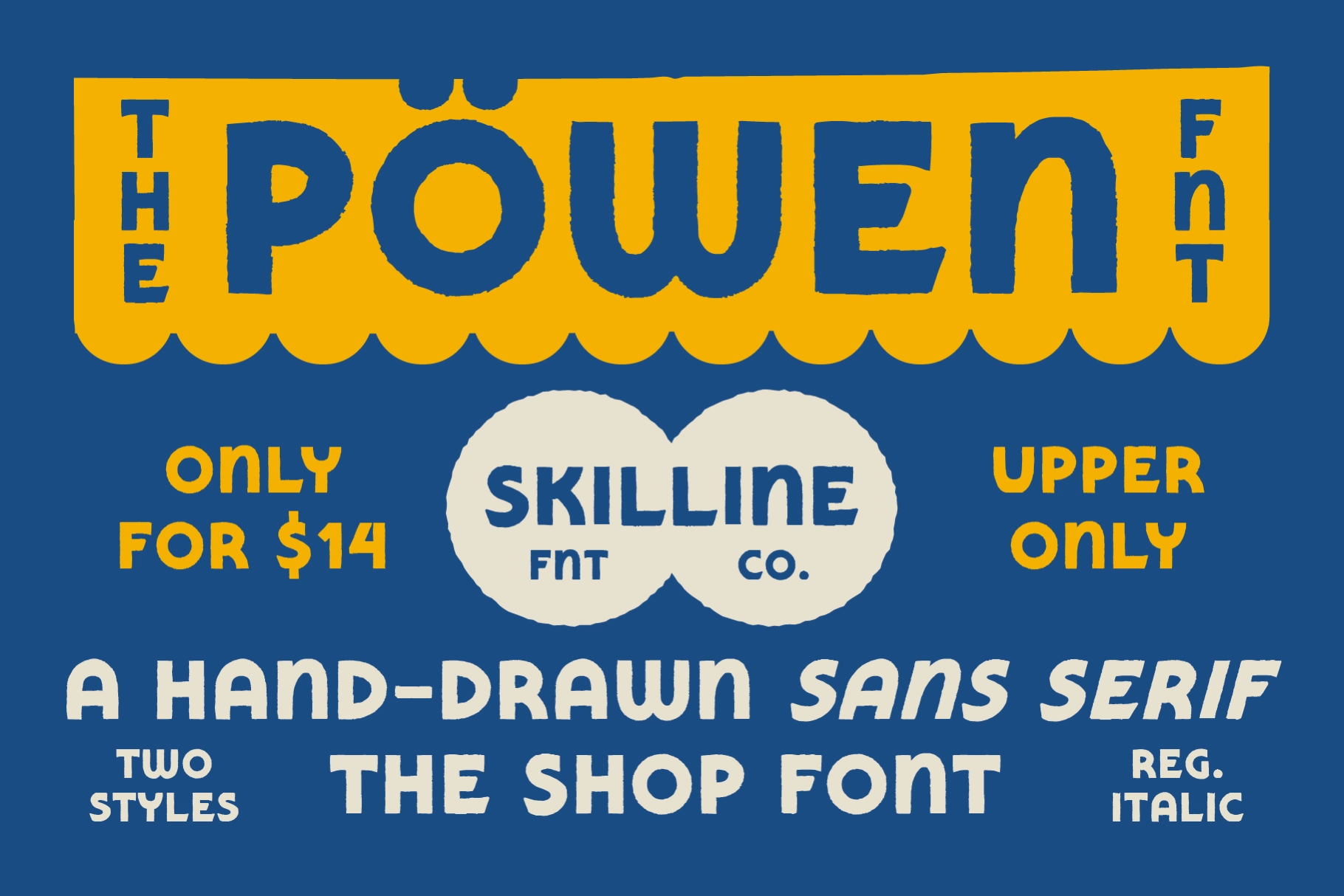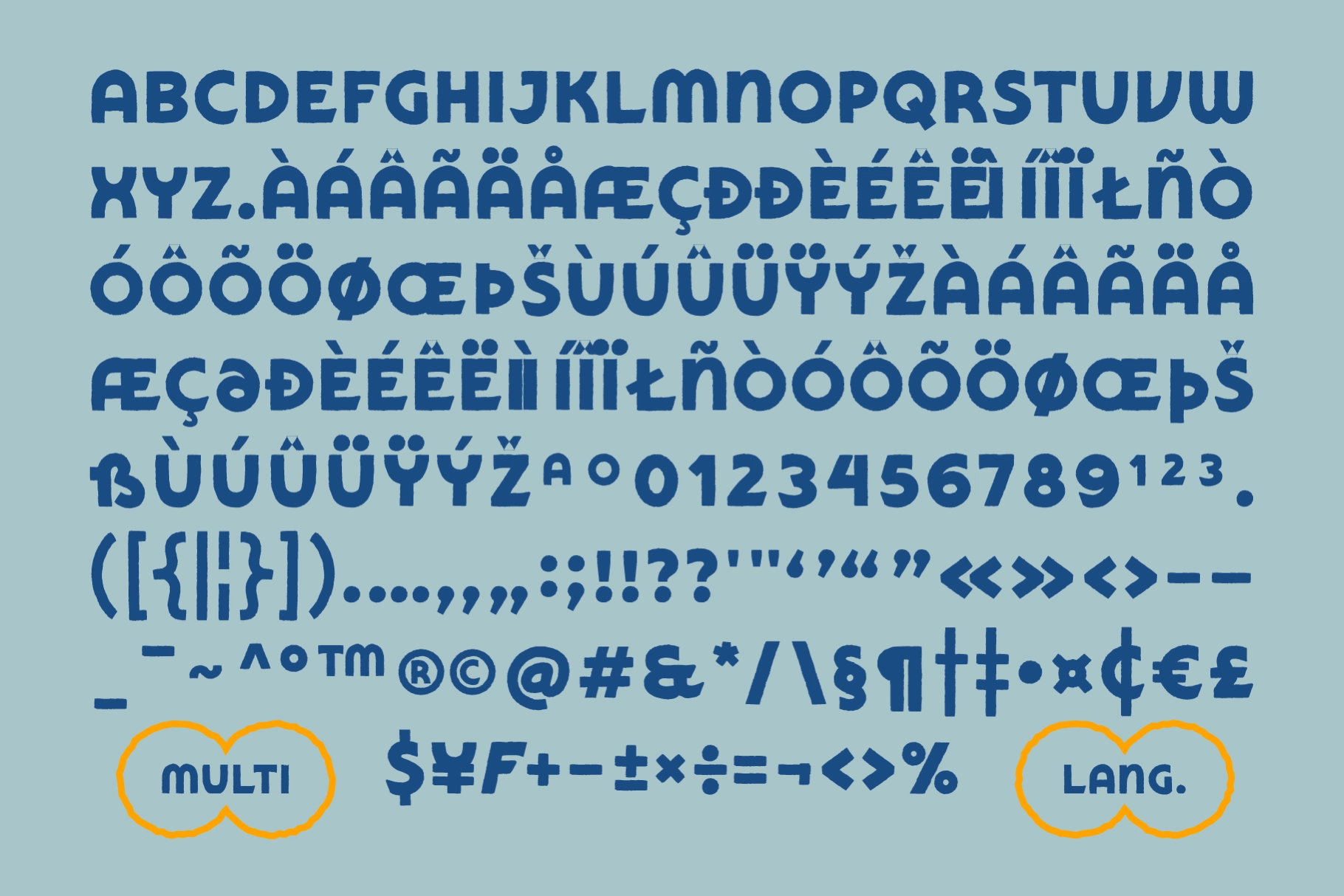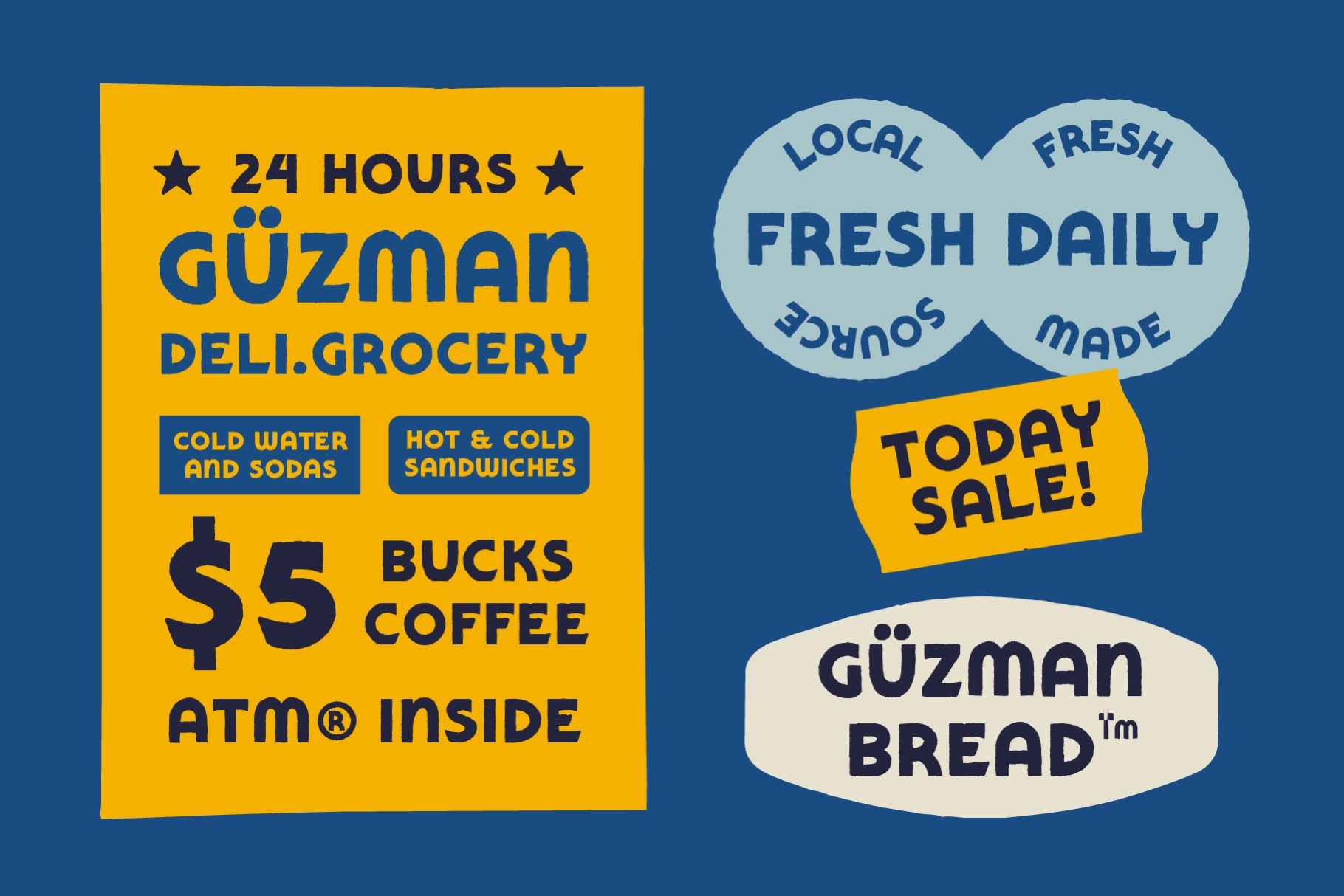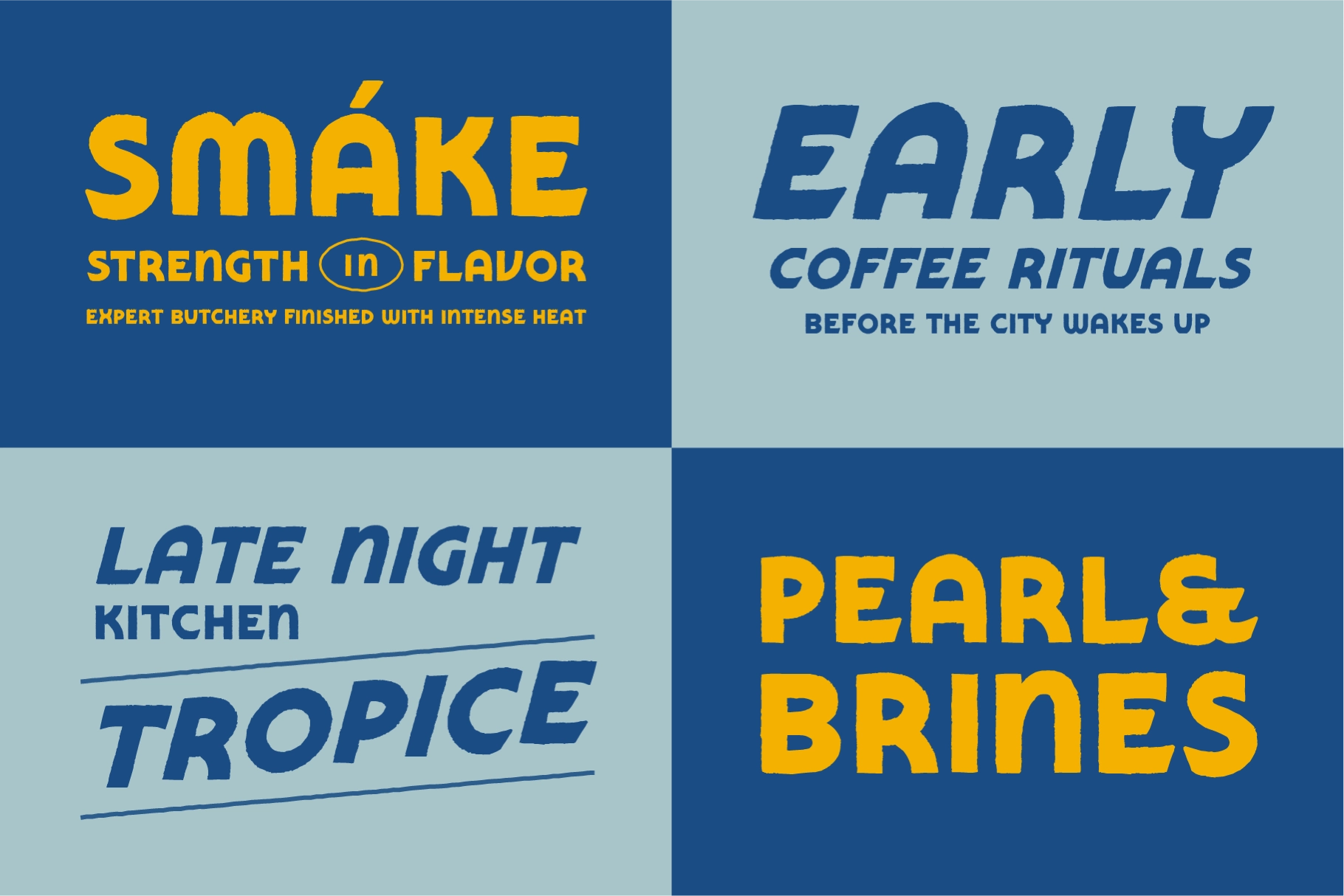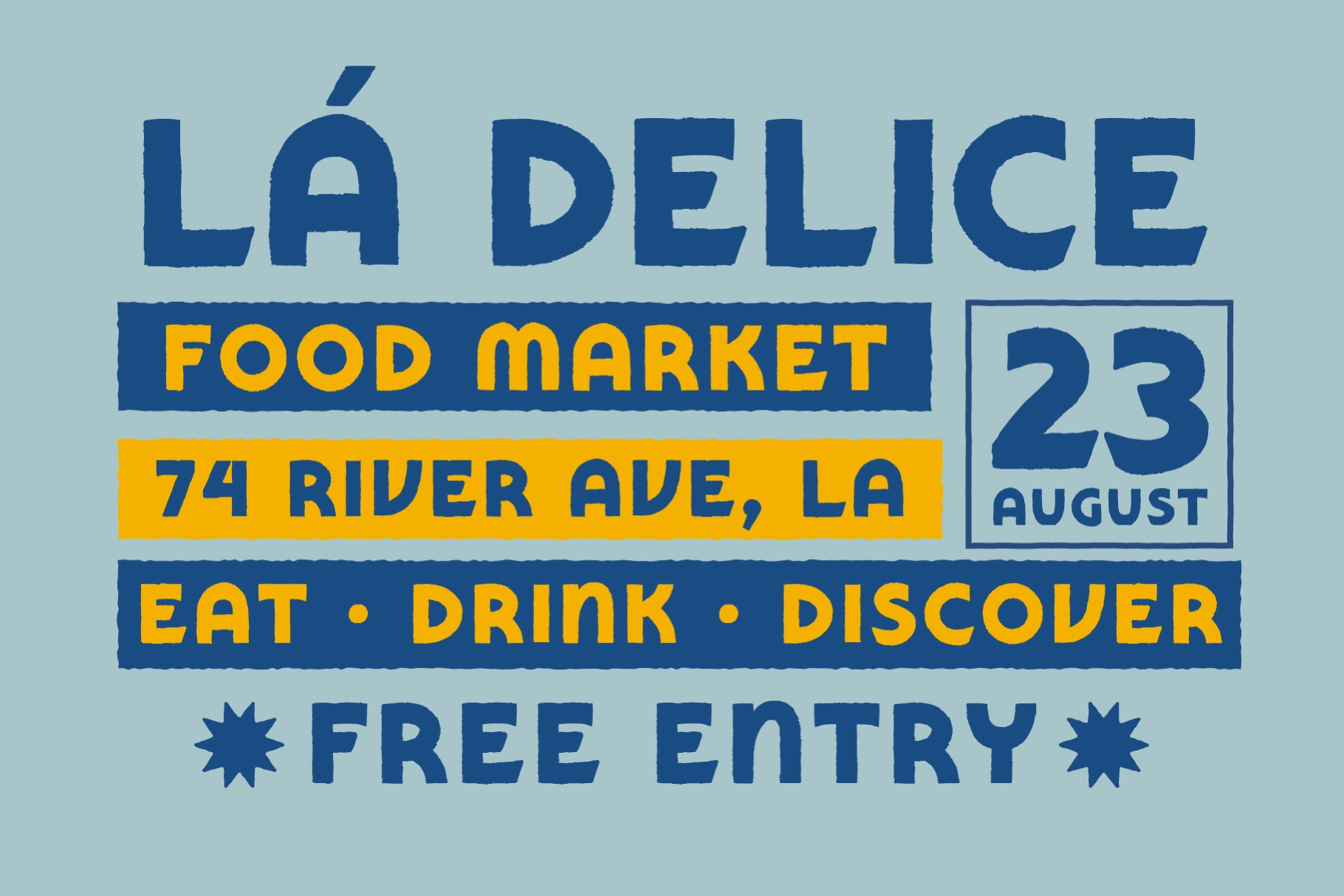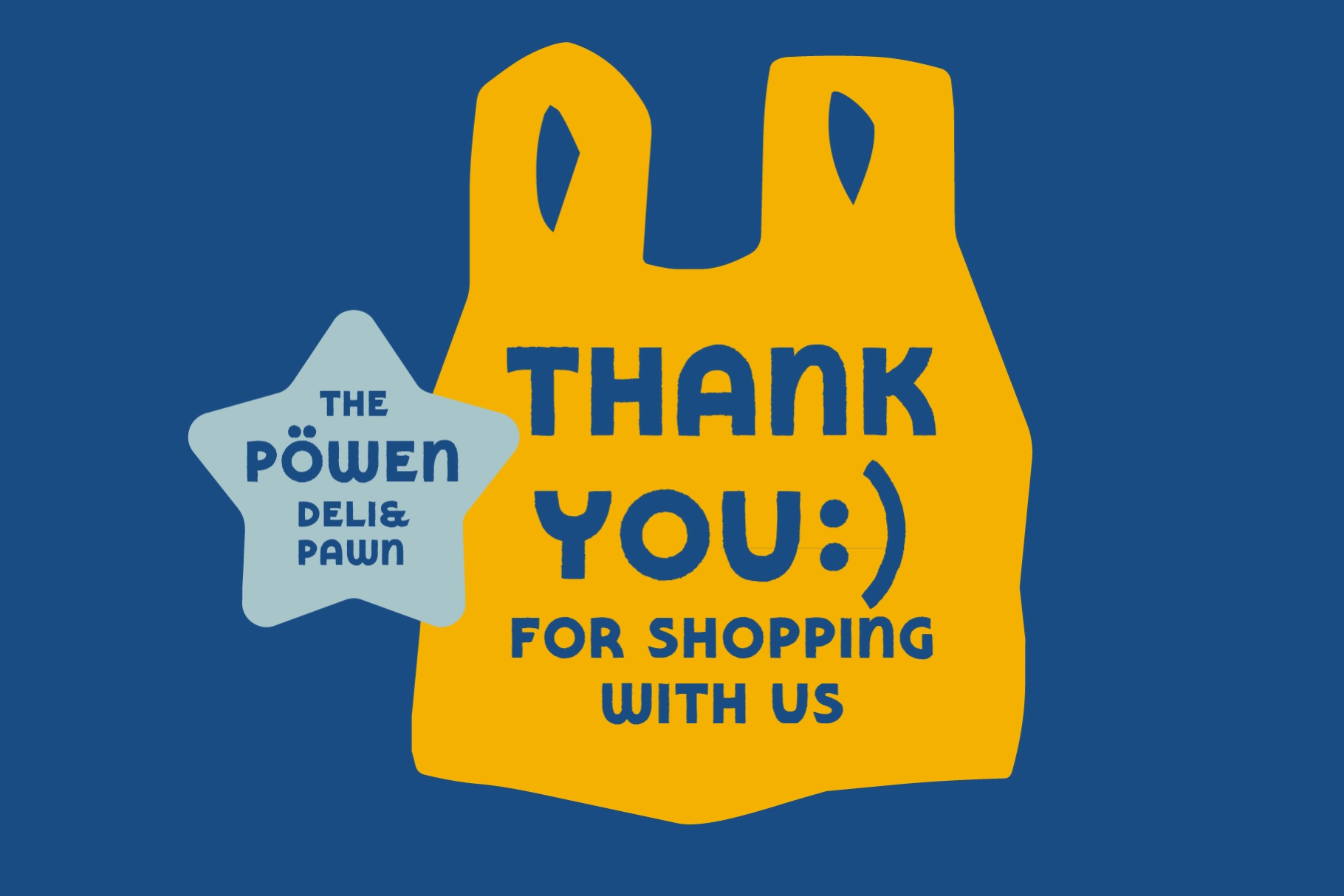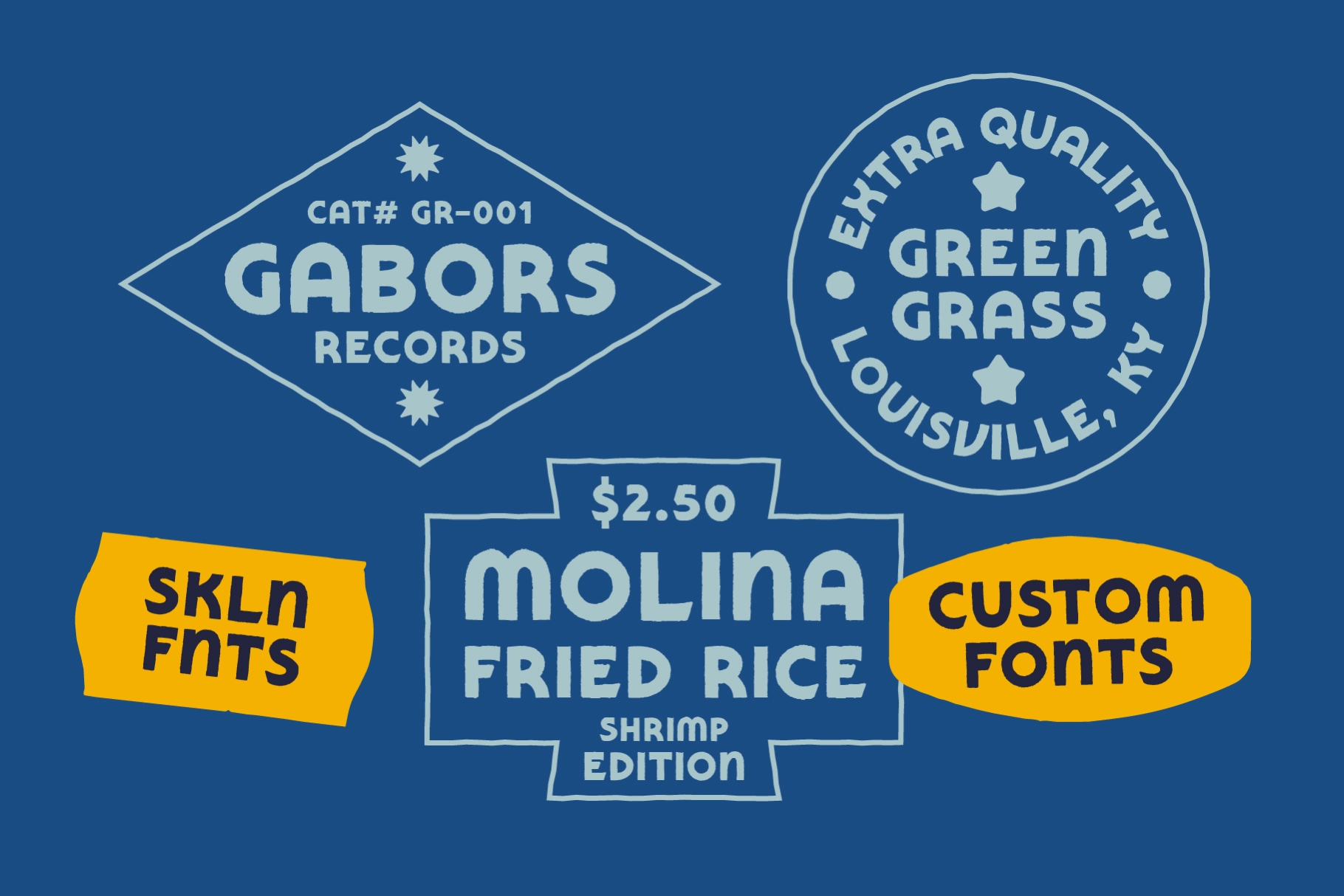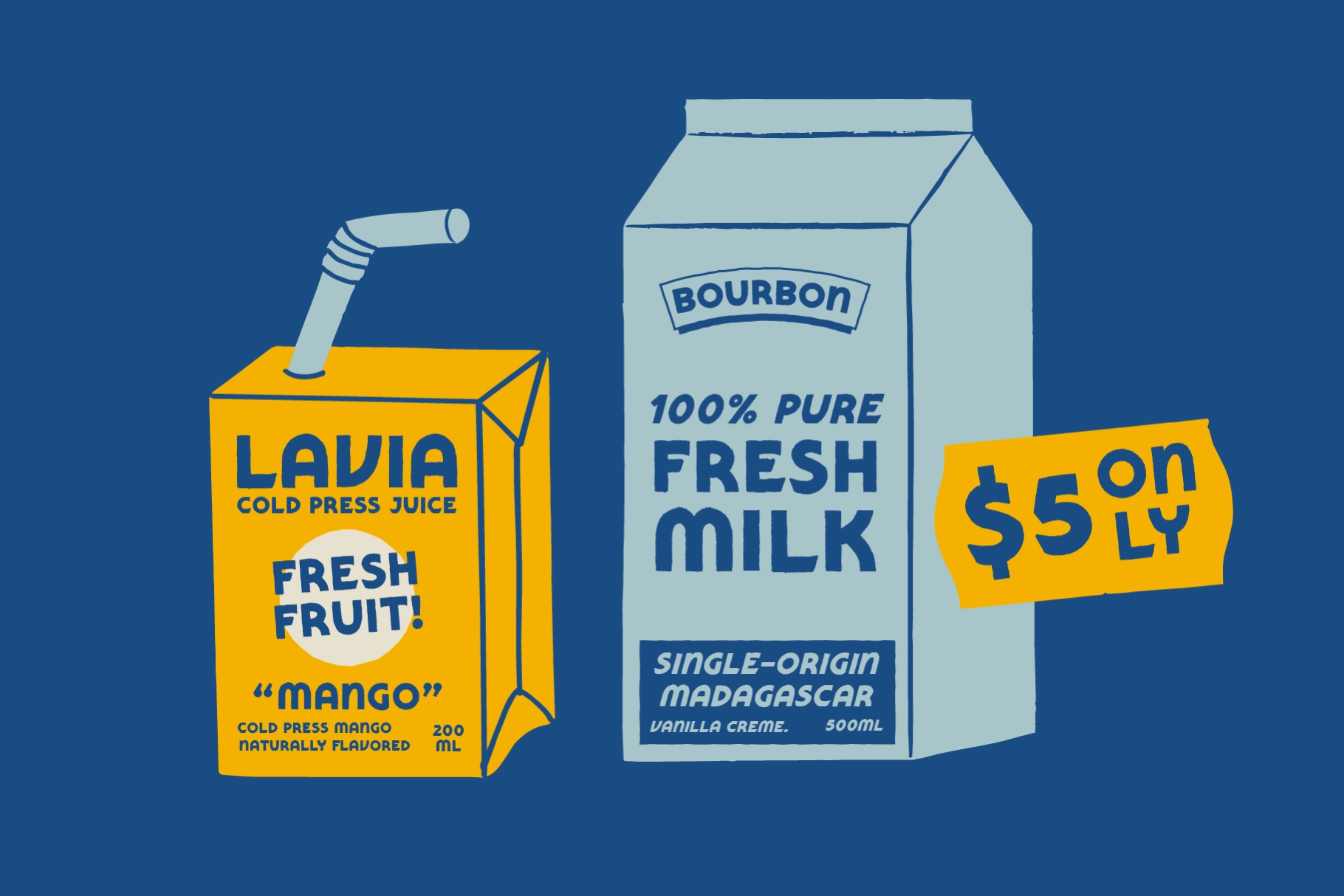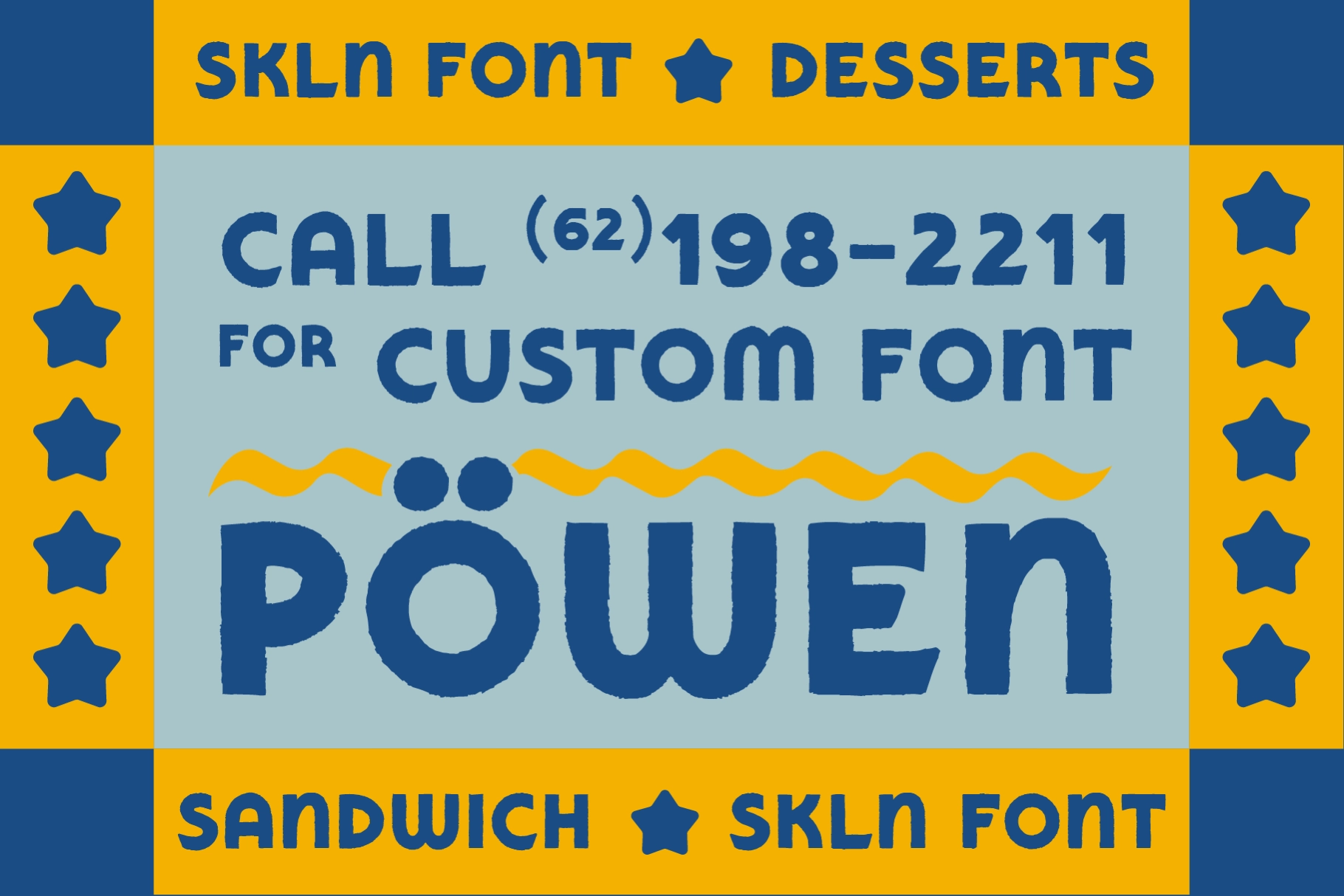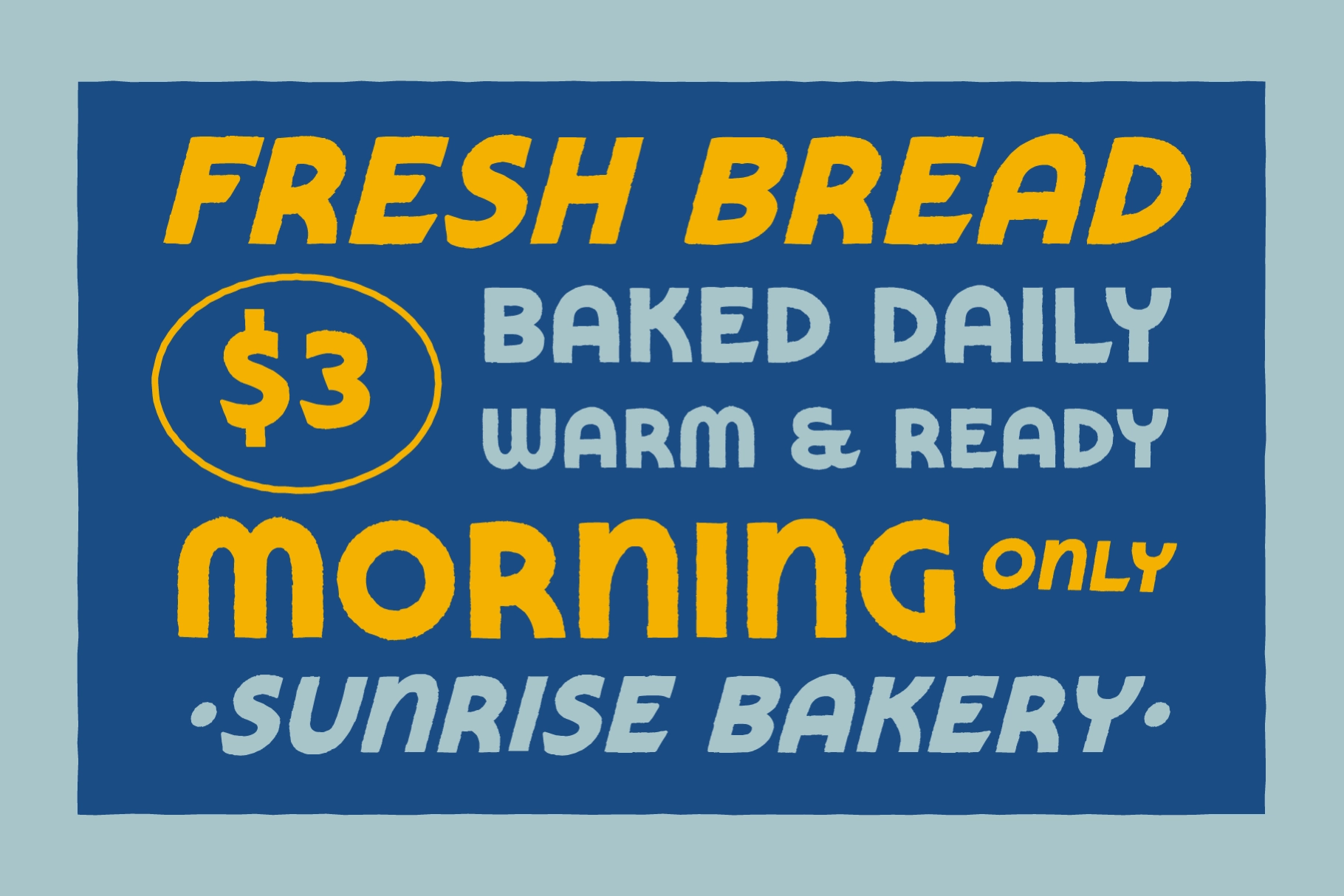
SFC Powen - Handdrawn Sans Serif Font
This handdrawn sans serif has chunky letterforms, uneven edges, and a friendly shop-sign rhythm rooted in deli boards, grocery labels, and local market graphics. The uppercase style is bold and easy to read, while the Italic adds extra motion for sale tags, menu callouts, and punchy promotional type.
Use Powen for grocery store branding, deli packaging, bakery signs, café menus, farmers market posters, artisan food labels, restaurant graphics, retail stickers, sandwich shop identities, product packaging, merch prints, window signage, and more. It is a strong pick for designs that need approachable lettering with handmade grit, the kind that looks like it belongs above a counter selling very good bread.